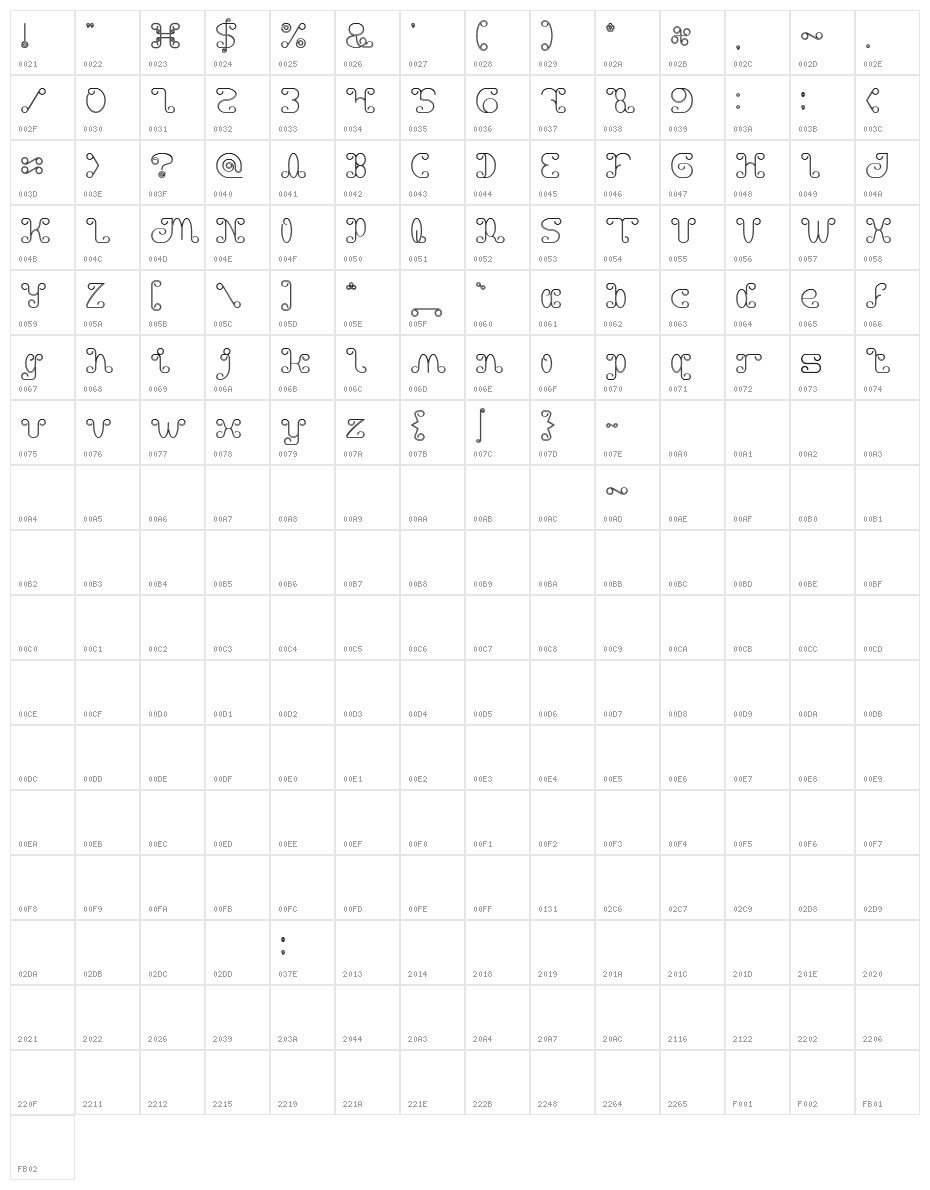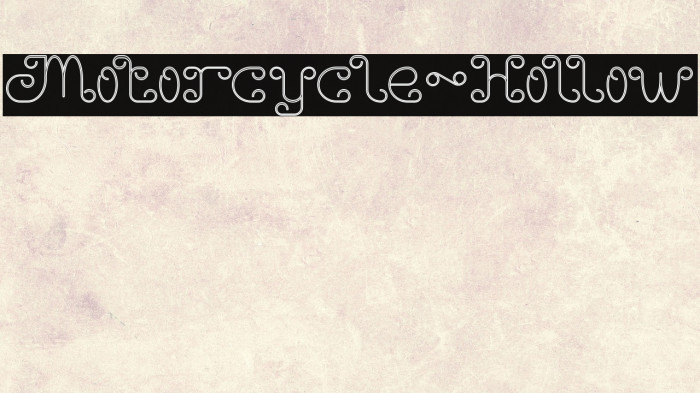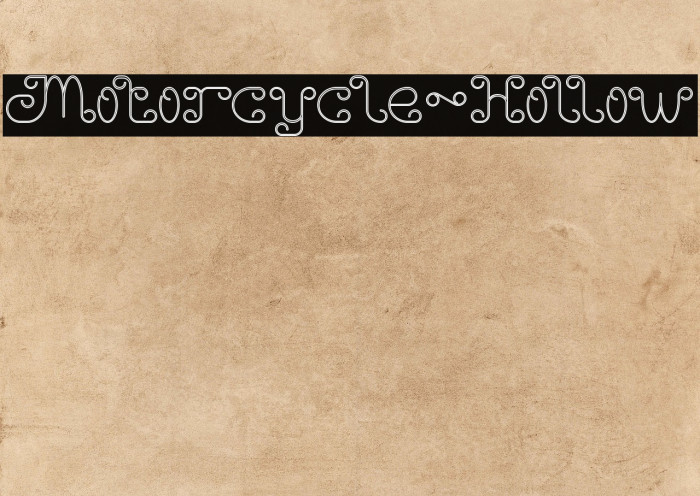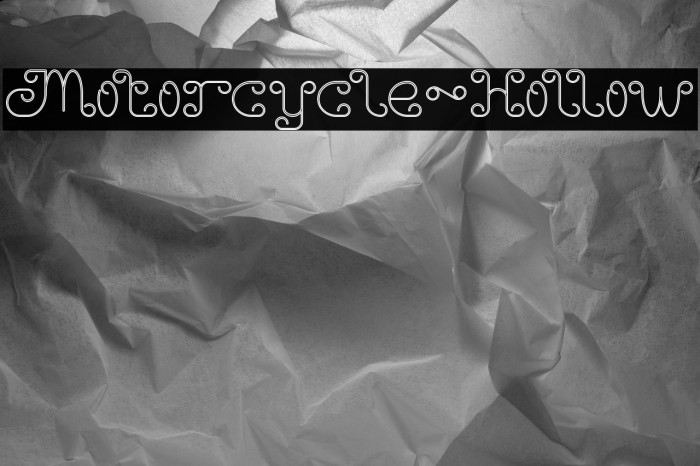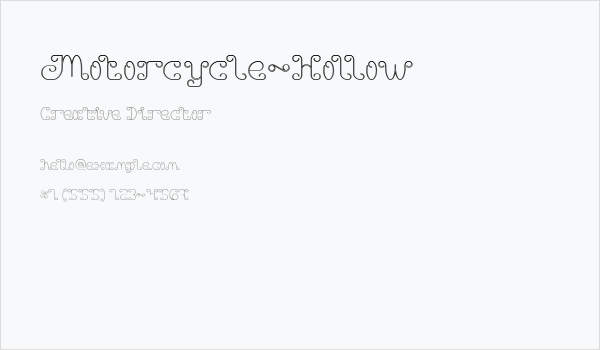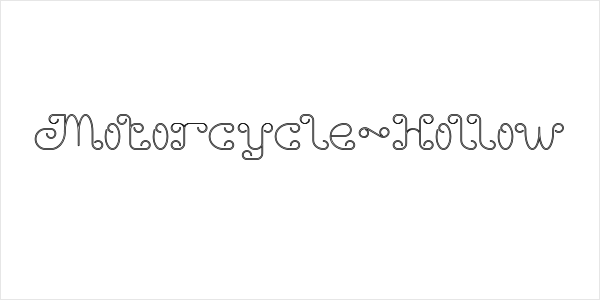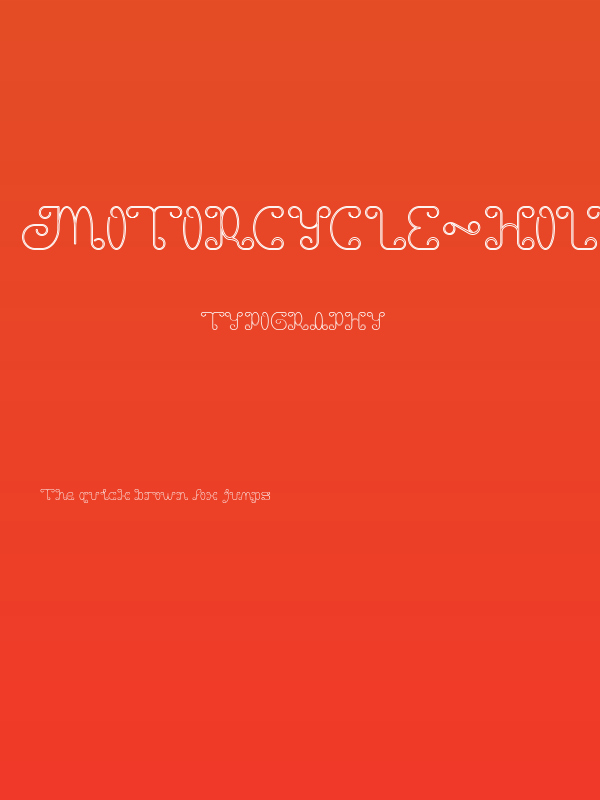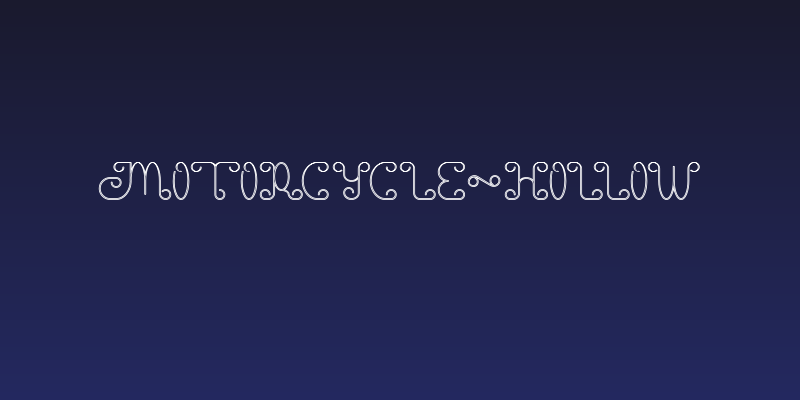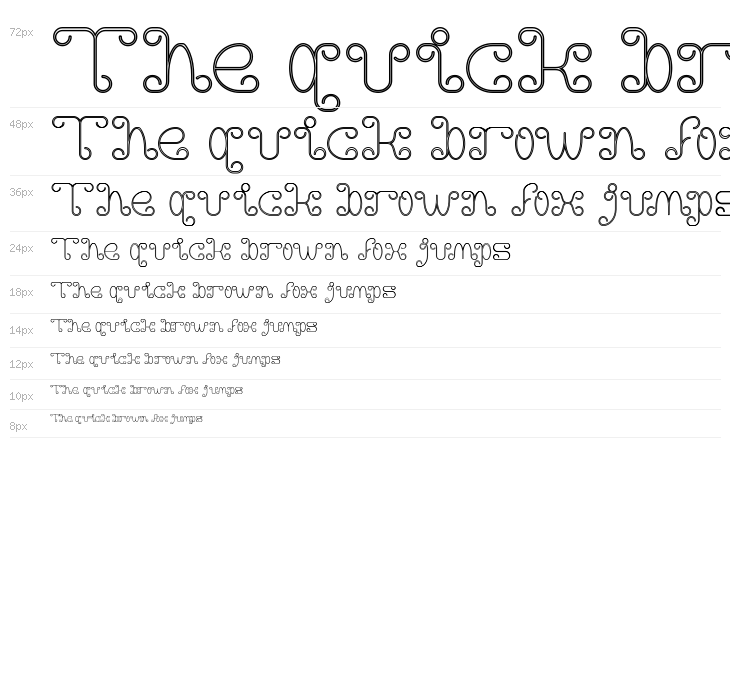
Motorcycle-Hollow Font
Motorcycle-Hollow Description
This font features a unique and playful design with hollow, swirling lines that create a sense of movement and whimsy. Each character is crafted with loops and curves, giving it a decorative and artistic appearance. The uppercase and lowercase letters maintain a consistent style, with the uppercase being slightly more pronounced. Numbers and special characters follow the same design principles, ensuring uniformity across the font. The hollow nature of the characters adds to its lightweight feel, making it suitable for creative and eye-catching designs.